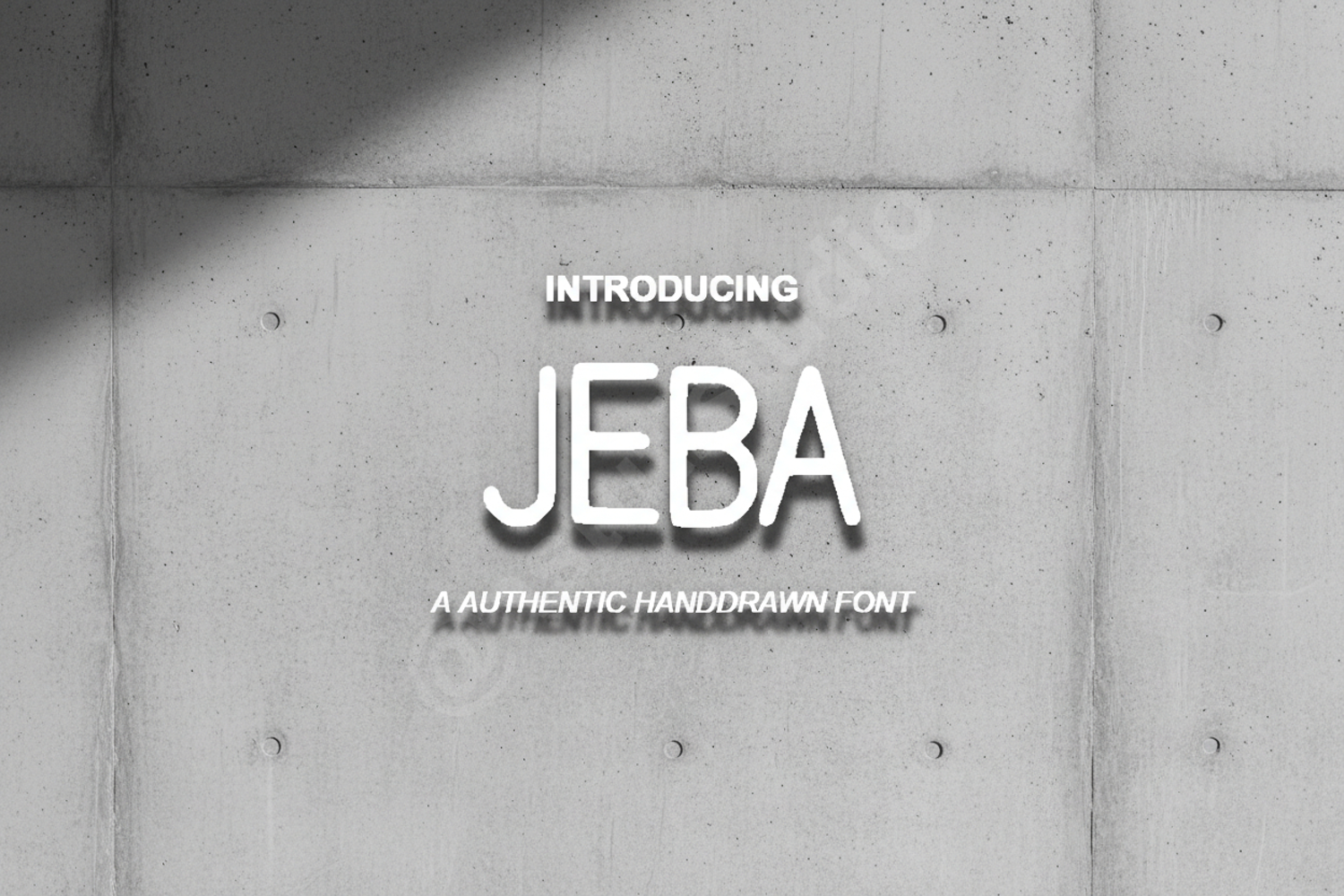
Jeba | Modern Minimalist Sans Serif Typeface
Jeba
Jeba is a premium sans serif typeface that embodies modern elegance and minimalist design. Crafted with precision, this font offers a clean and sophisticated aesthetic that elevates any creative project. Whether you are building a luxury brand or designing a sleek website, Jeba provides the perfect balance of readability and style.
- Complete Character Set including Uppercase and Lowercase
- Comprehensive Numbers and Punctuation
- Multilingual Language Support
- Luxury Branding and Identity Systems
- Minimalist Logo Design and Wordmarks
- Editorial Layouts and Magazine Spreads
- High-End Social Media Graphics and Content
- Website Headers and Modern UI Design
- Professional Stationery and Business Cards